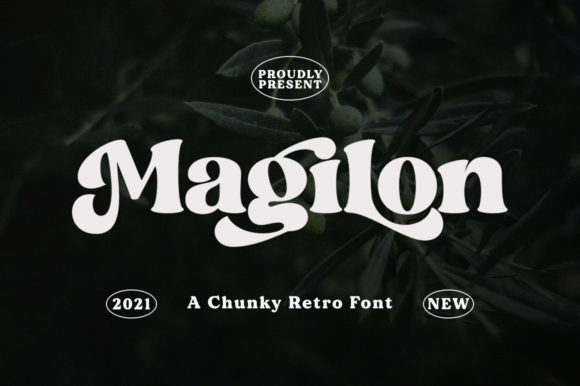
Magilon Font
Magilon is a cool and chunky retro styled display font. It is PUA encoded which means you can access all of the glyphs and swashes with ease! Add it confidently to your projects, and you will love the results.